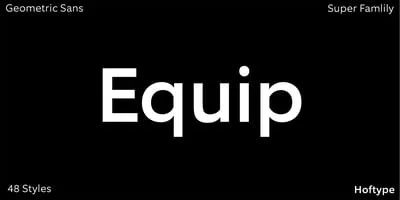
Equip Font
The Equip Font is perfect for professional equipment design projects including industrial machinery branding, technical equipment documentation, outdoor gear packaging, sports equipment marketing, professional tool catalogs, military hardware materials, automotive parts advertising, and specialized equipment training manuals. This robust typeface brings functional reliability and professional equipment authenticity to any design project requiring dependable, performance-oriented typography with industrial strength.
What makes Equip Font so exciting is its powerful embodiment of professional equipment standards with sturdy, functional letterforms that capture the essence of reliable tools and precision machinery. The letters feature industrial-grade characteristics with equipment-inspired durability that creates an immediate sense of professional reliability and functional excellence. This distinctive equipment character makes it perfect for brands and projects that want to communicate technical competence, professional quality, and the dependable appeal of specialized equipment and industrial tools.
The Equip Font family typically includes regular and bold weights, often with technical variations and equipment-inspired design elements. Many versions feature industrial symbols, technical glyphs, and professional equipment elements that enhance its authenticity for machinery and equipment applications.
Whether you're designing for equipment manufacturers, industrial suppliers, or professional tool companies, Equip Font provides the perfect solution for projects that need to convey professional reliability and equipment excellence. This font transforms standard technical communications into authoritative designs that immediately communicate equipment quality, professional functionality, and the dependable strength of specialized tools to audiences requiring reliable, professional-grade equipment solutions.